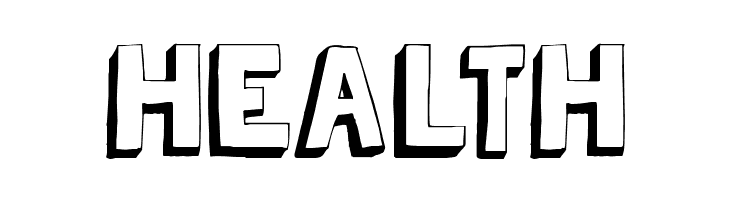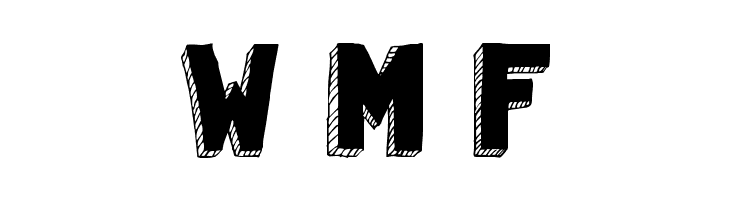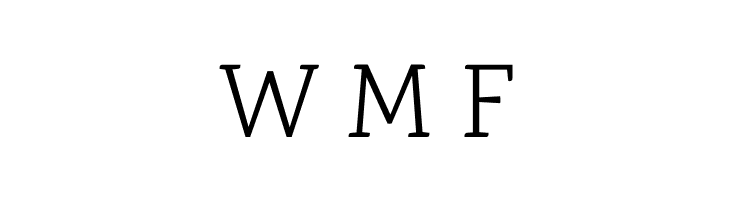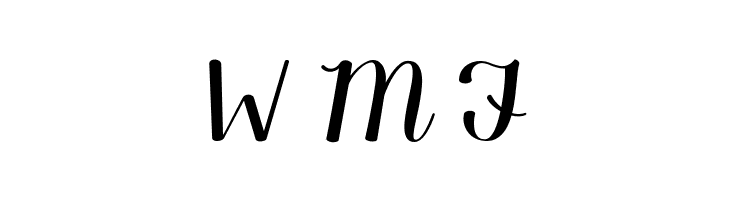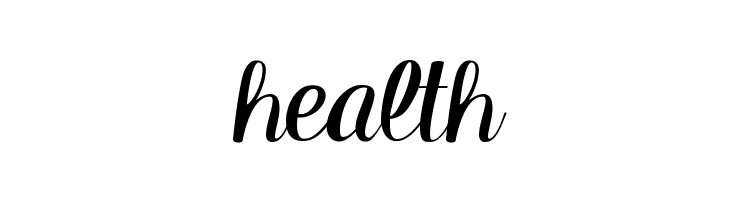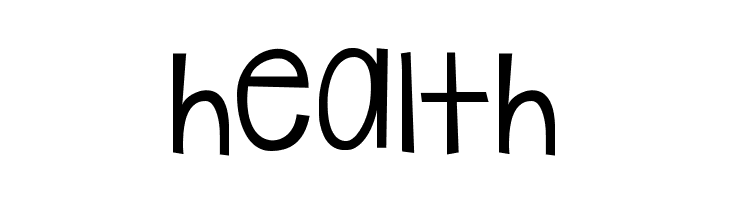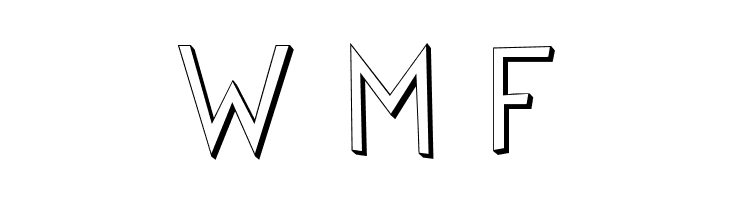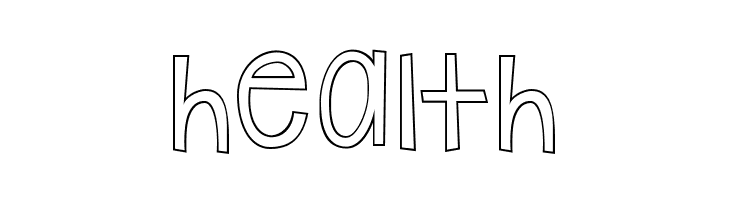
A bold, playful font with a 3D shadow effect, perfect for lively designs.
A bold, hand-drawn font with a playful shadow effect.
A classic serif font with light weight and moderate contrast, offering elegance and readability.
A versatile collection of decorative and geometric arrow designs.
A flowing, cursive script font with elegant loops and swashes.
A playful, hand-drawn font with a whimsical and casual style.
A playful, outlined font with a hand-drawn, whimsical style.
A playful, outline-style font with bold, rounded characters.
A decorative font with characters enclosed in bold star shapes, perfect for playful designs.